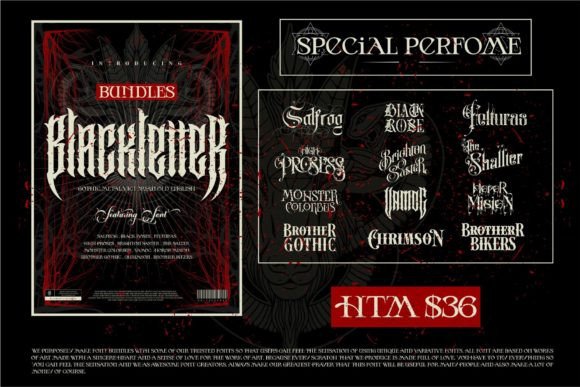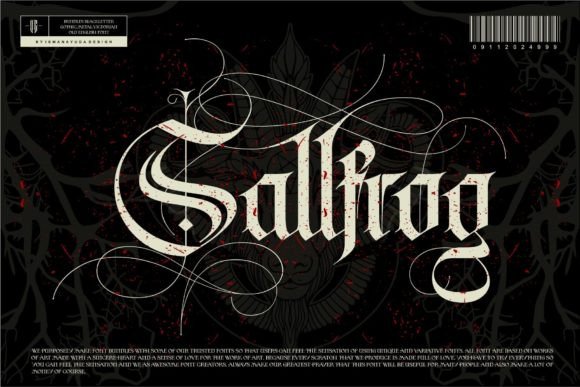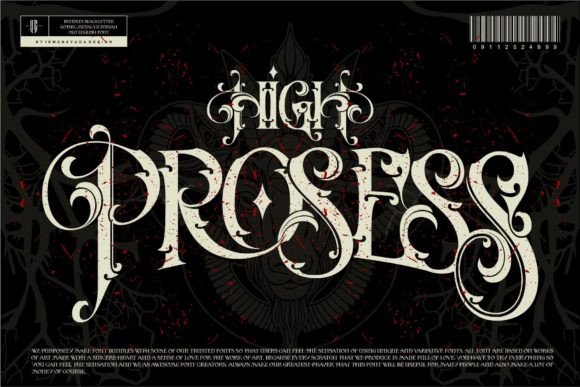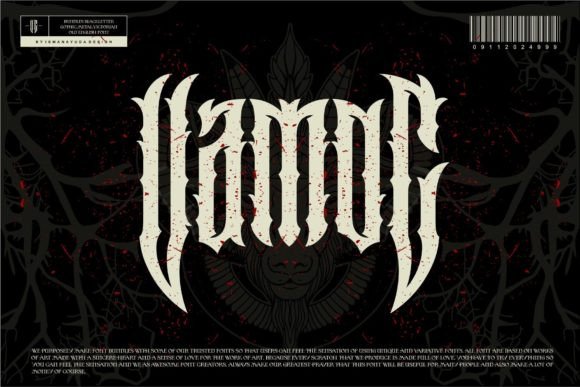
Bundles Blackletter Font
This 12-font bundle offers a mix of bold and classic blackletter styles, including Victorian Blackletter, Metal Fonts, Gothic Fonts, and Old English. These fonts have a vintage, dramatic look, perfect for creating strong, old-fashioned designs with a dark, elegant touch.